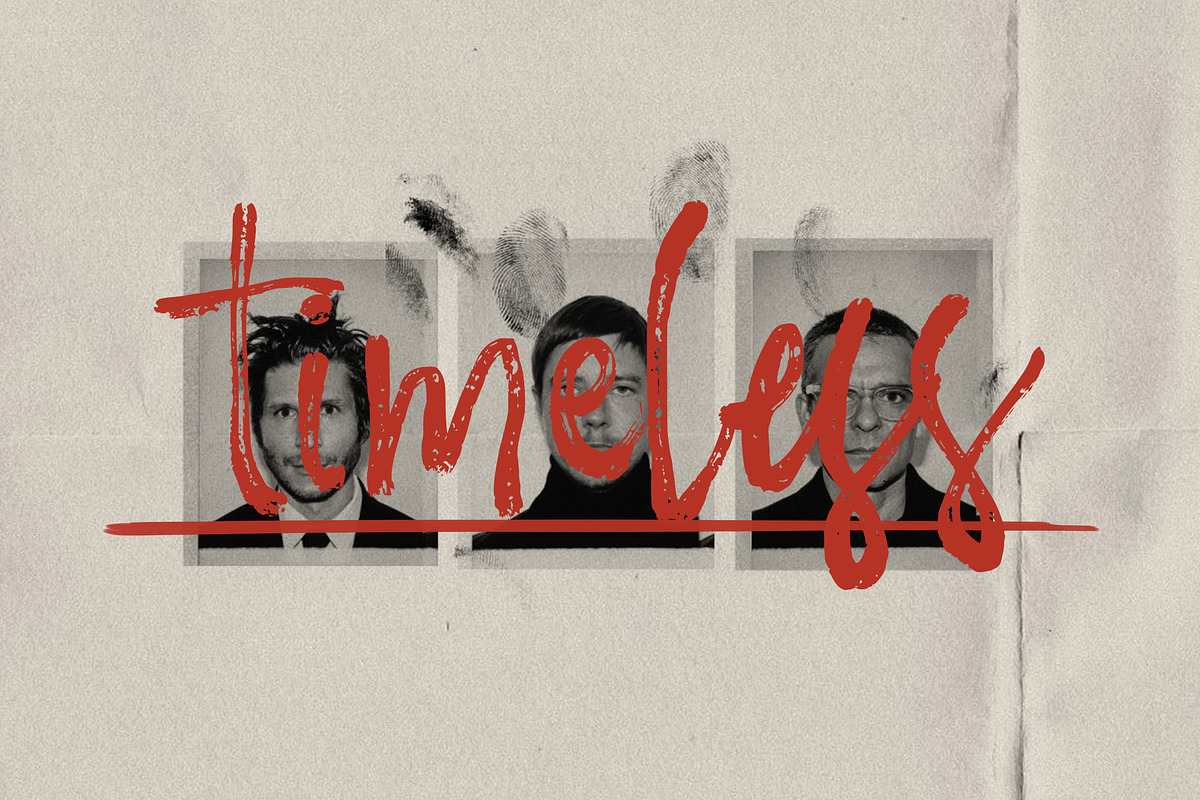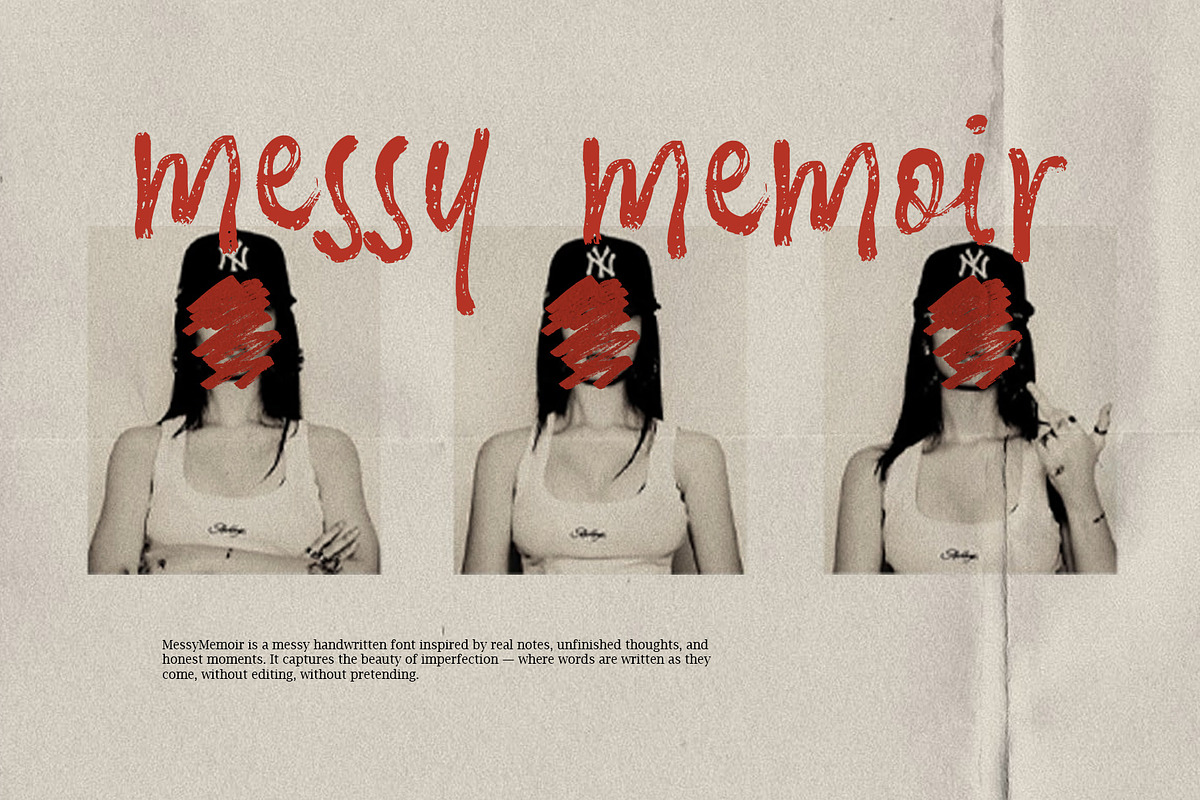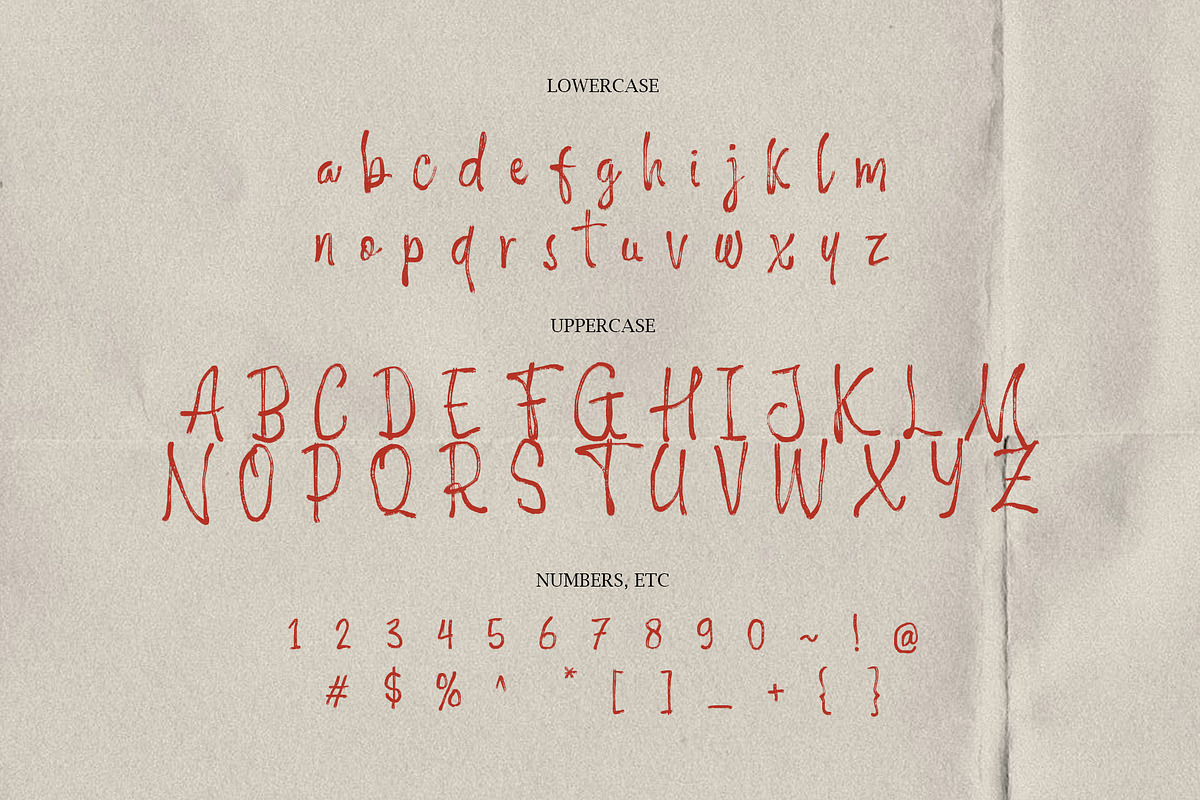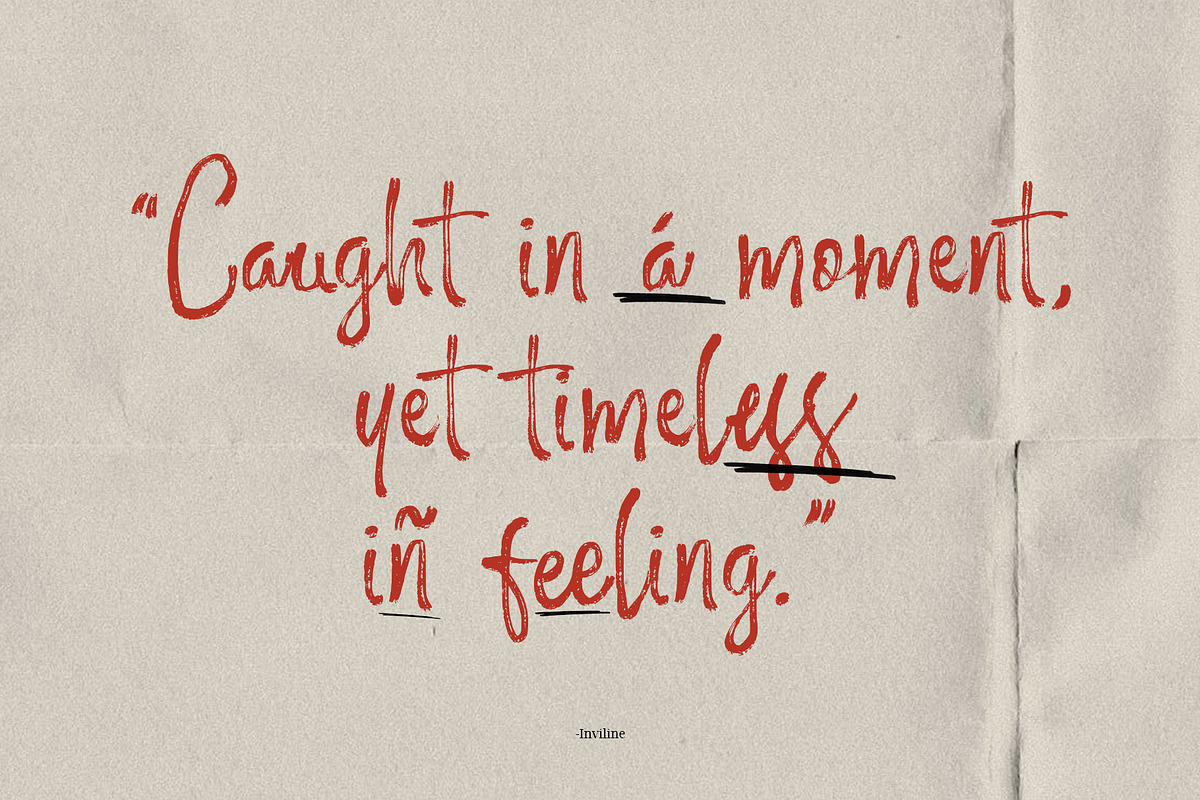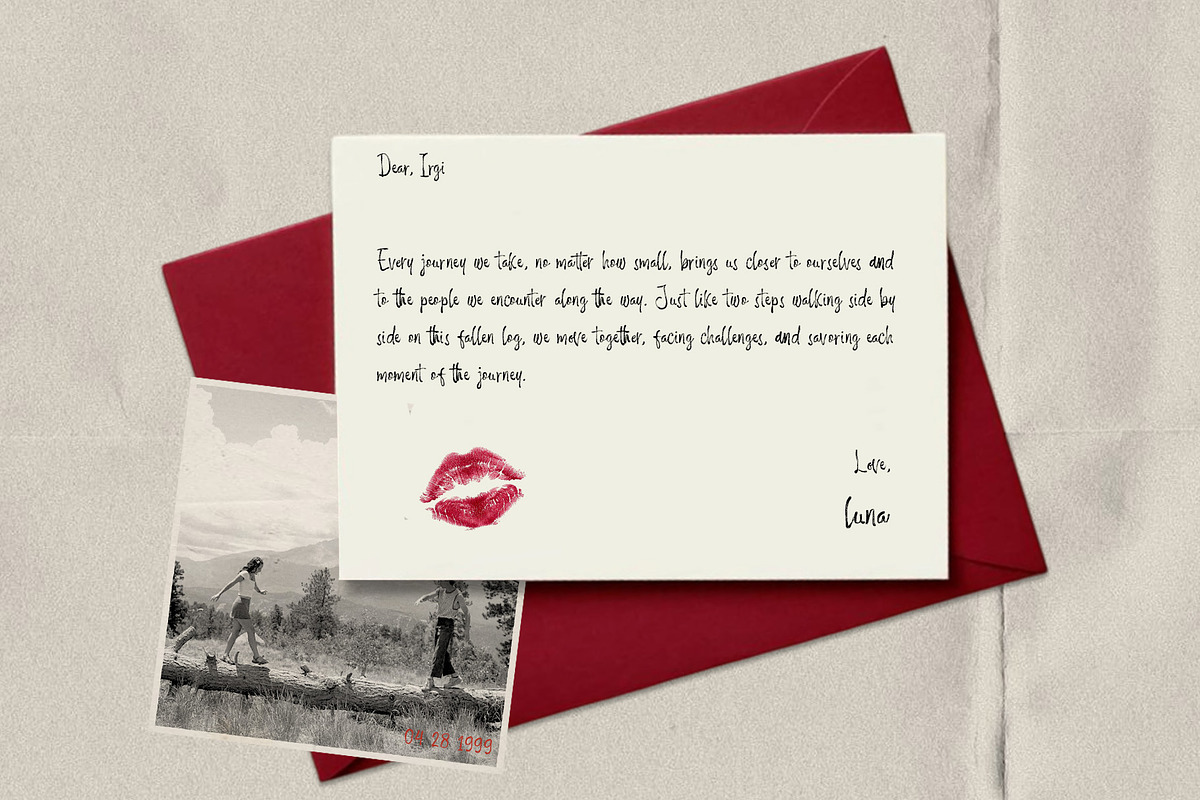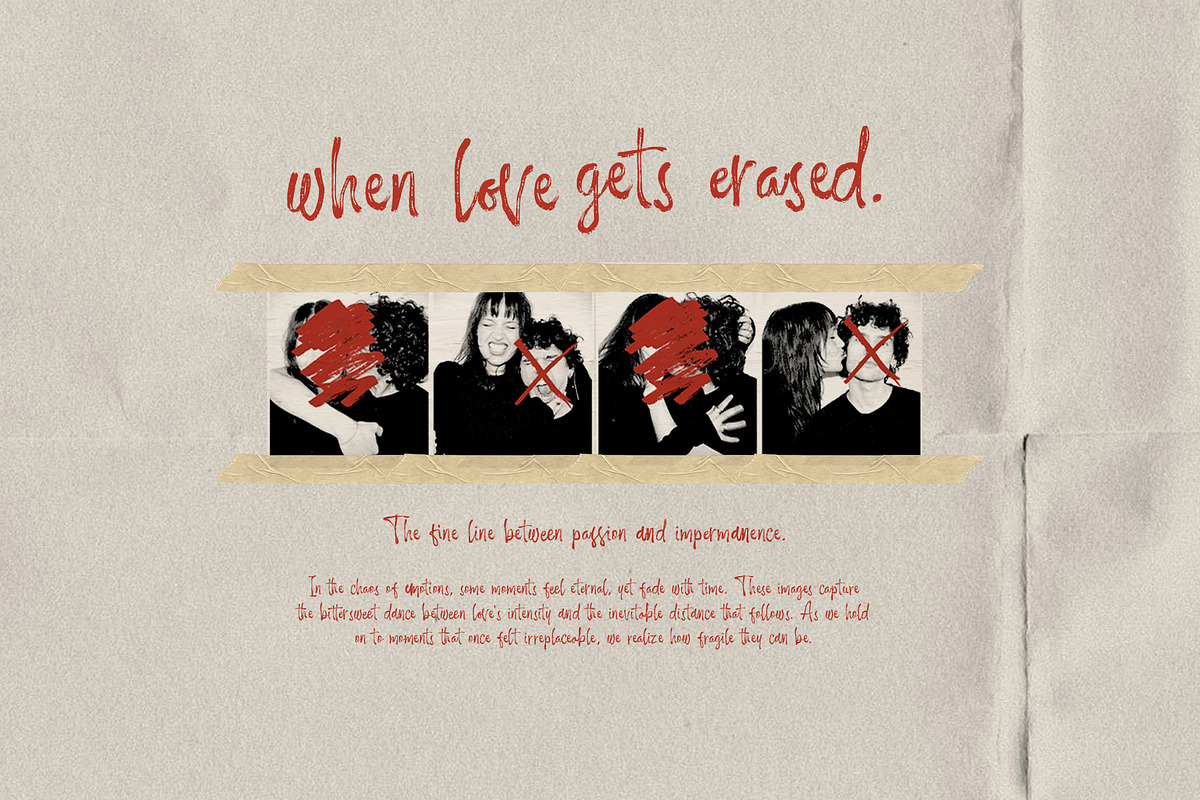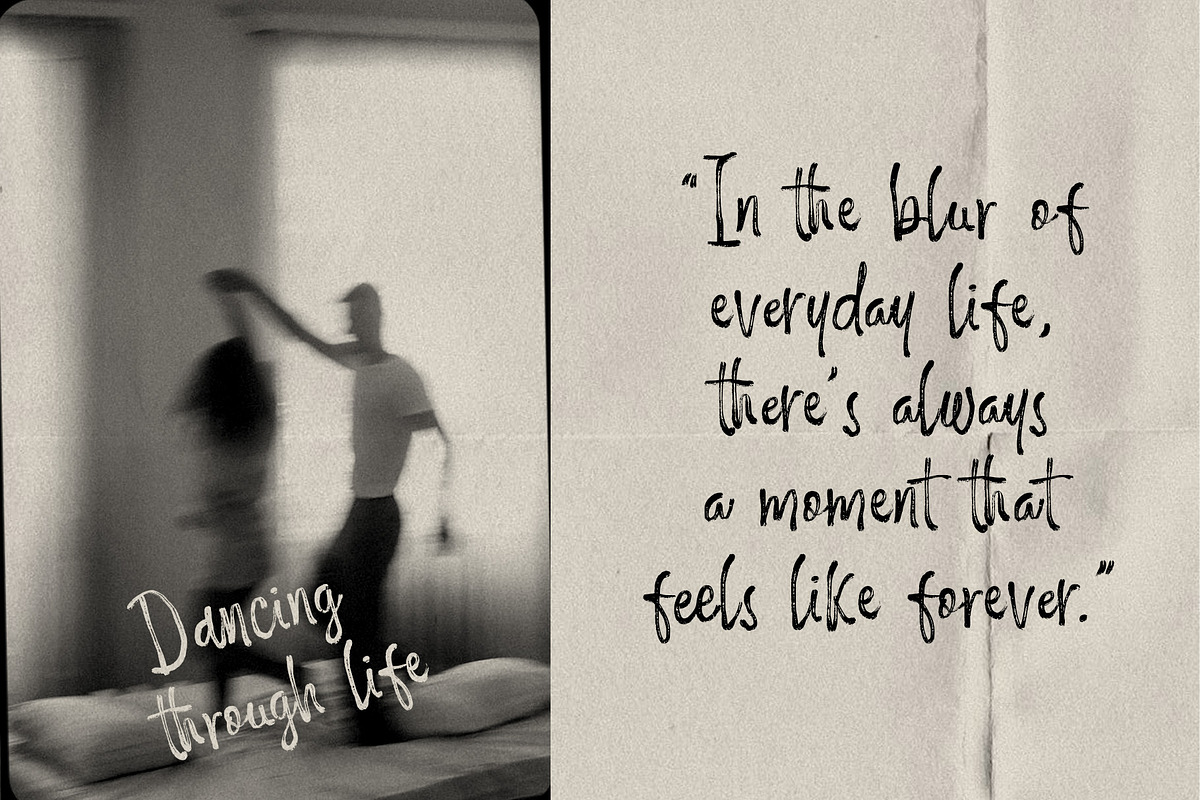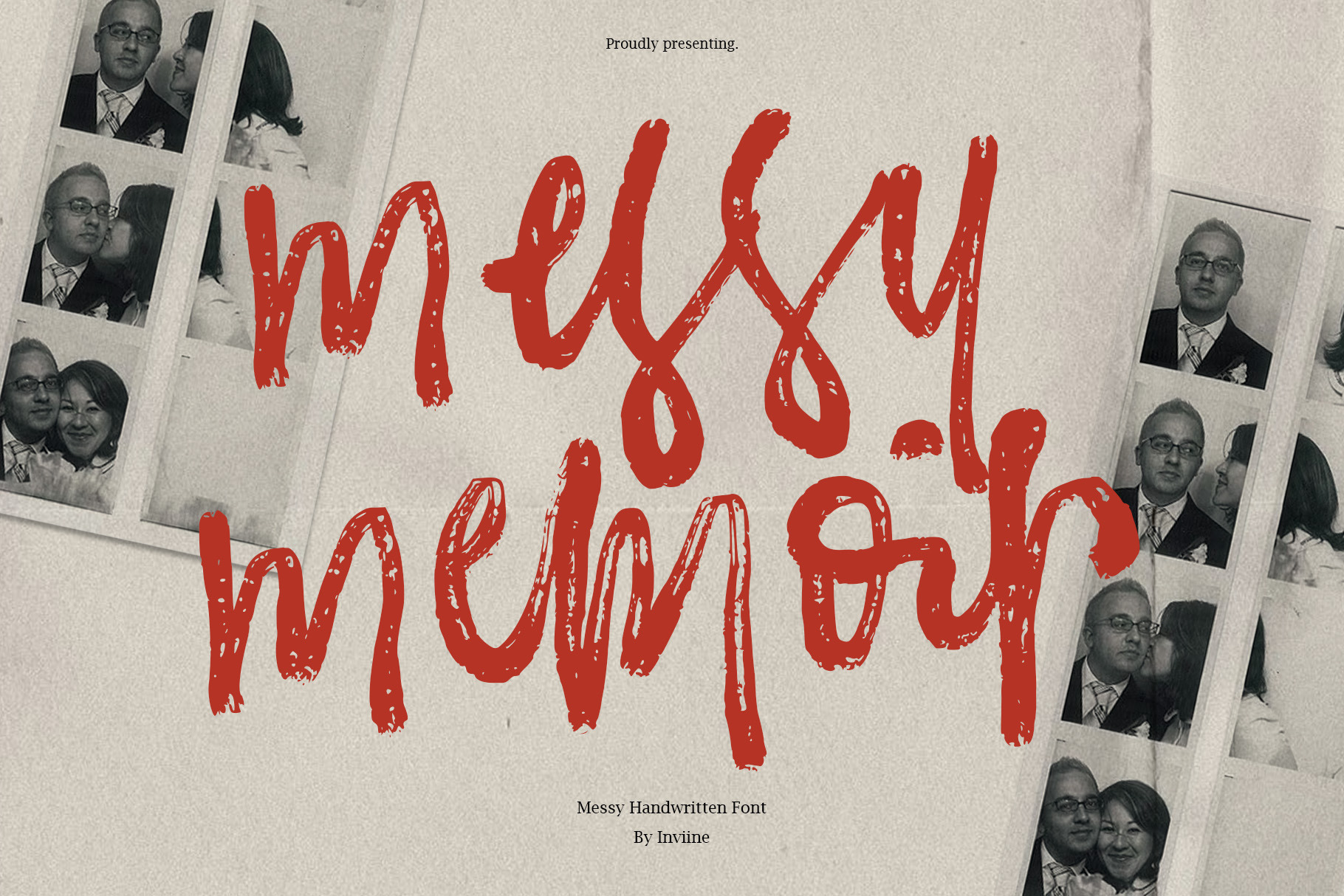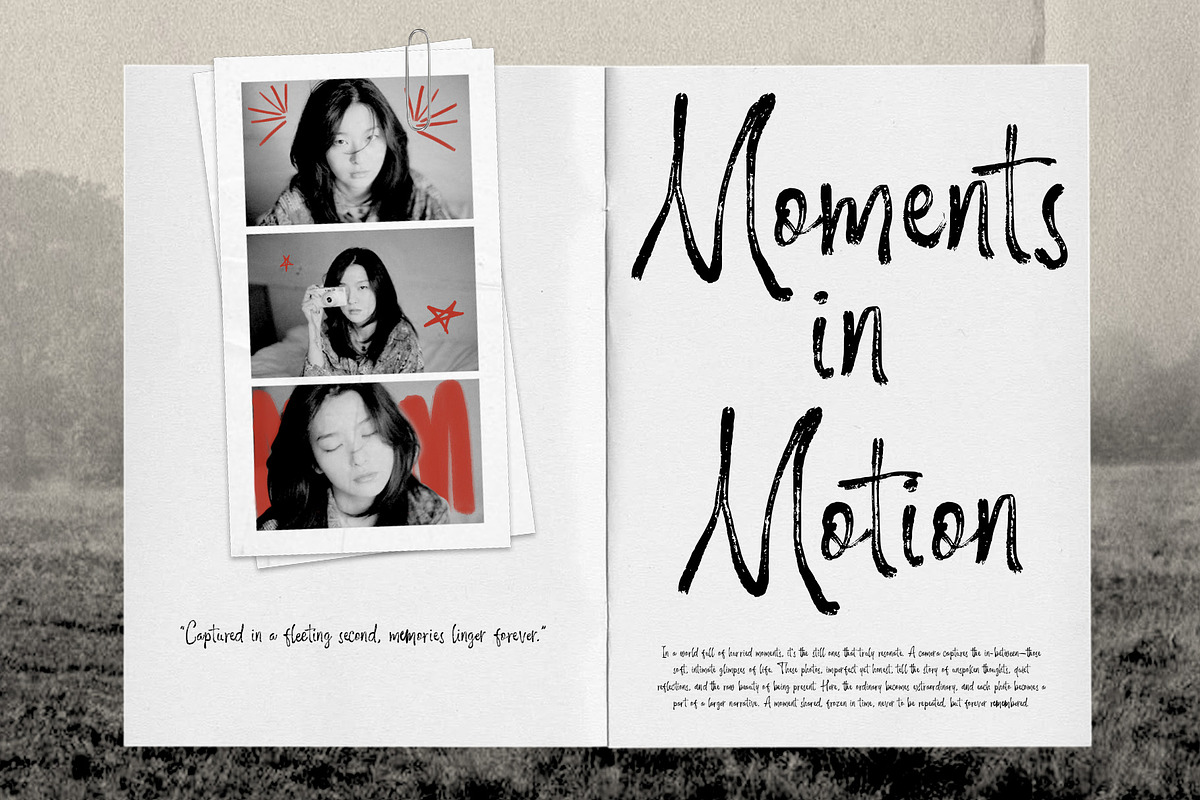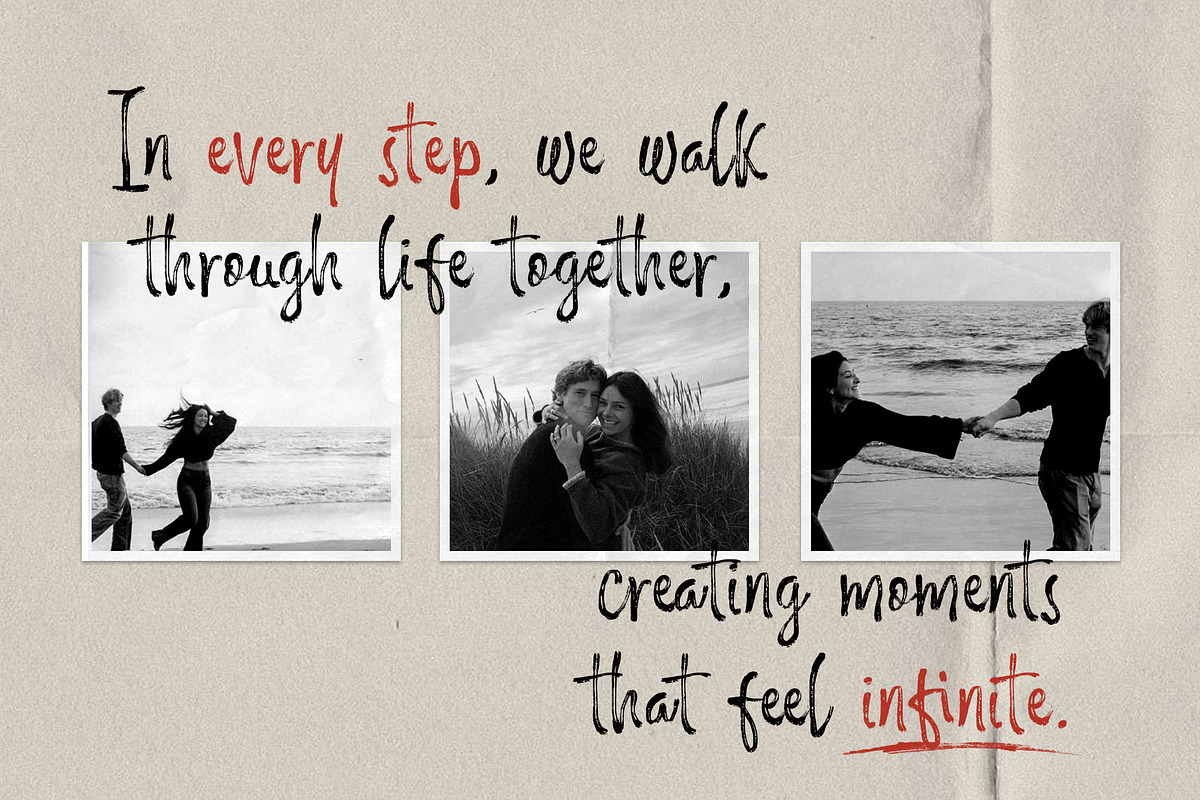
Messy Memoir - Handwritten Font
Messy Memoir is a messy handwritten font inspired by raw notes, unfinished thoughts, and honest moments left unfiltered. With uneven strokes, imperfect spacing, and natural ink textures, it captures the beauty of words written as they come without editing, without pretending.
Each letter feels spontaneous and deeply personal, like pages torn from a journal or memories scribbled in the margins of life. Designed to embrace imperfection rather than polish, Messy Memoir brings emotional warmth, authenticity, and expressive character to posters, editorials, photo books, branding, album artwork, and storytelling projects that value feeling over perfection.
Uppercase & Lowercase Characters
Numbers & Essential Punctuation
Natural Messy Handwritten Letterforms
Organic Stroke Texture & Ink Imperfection